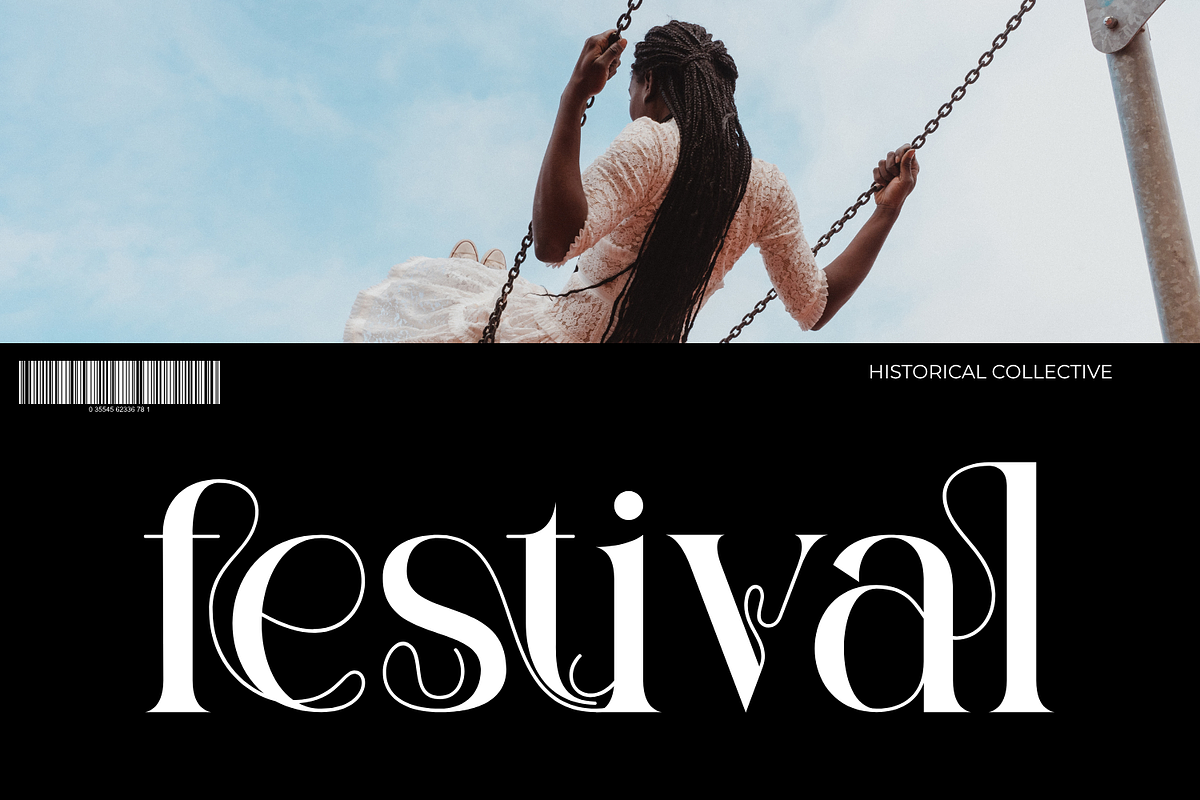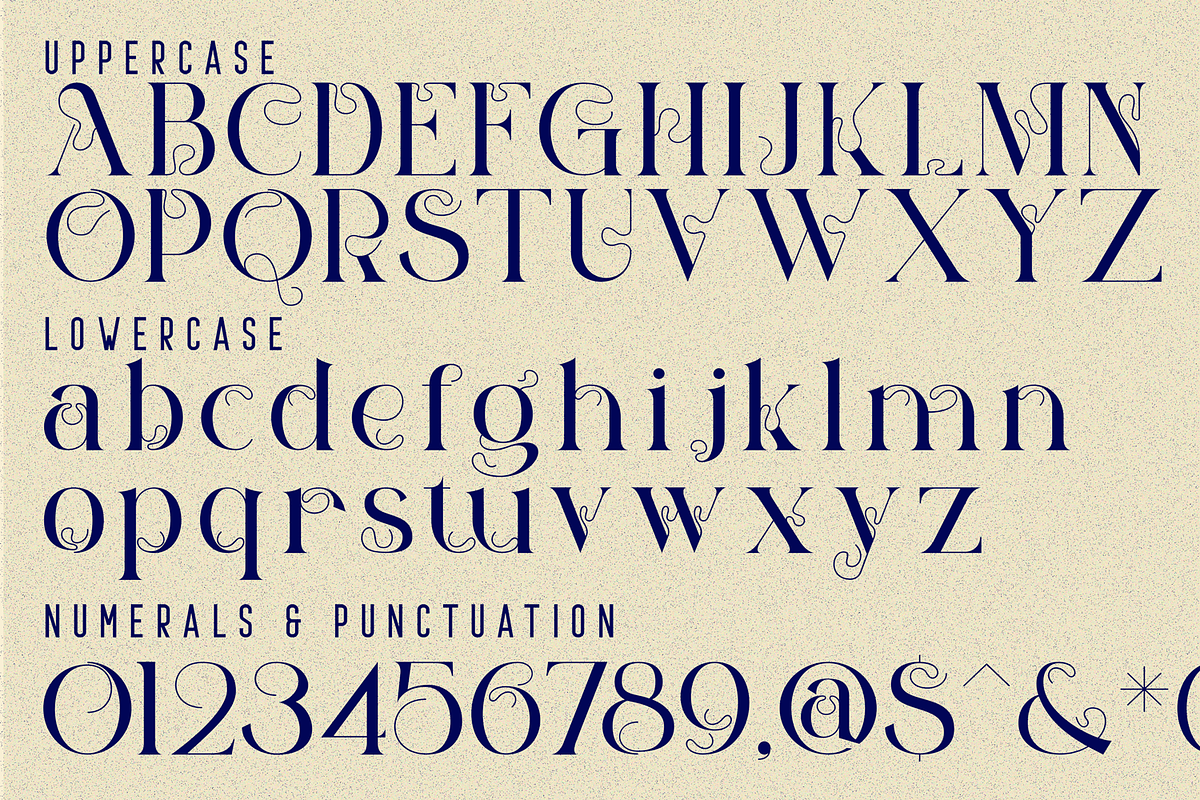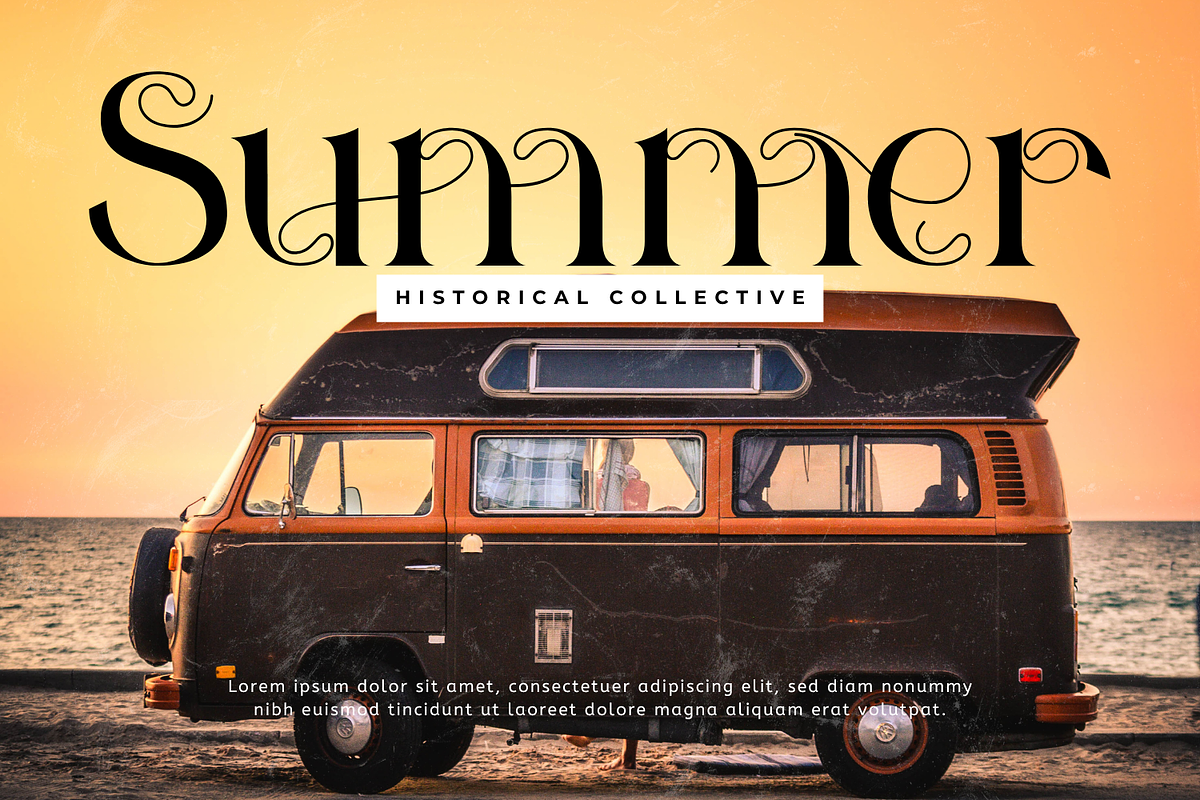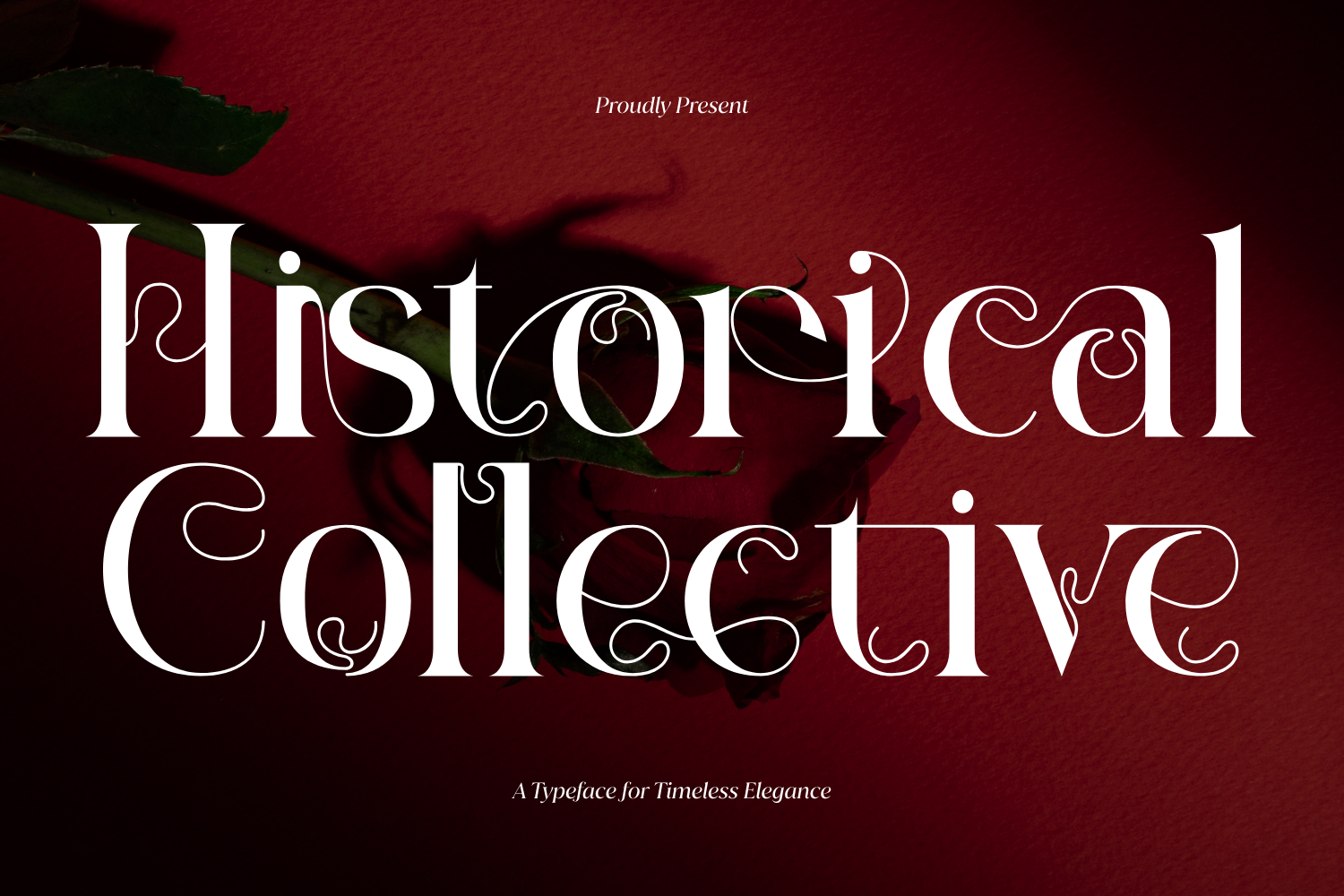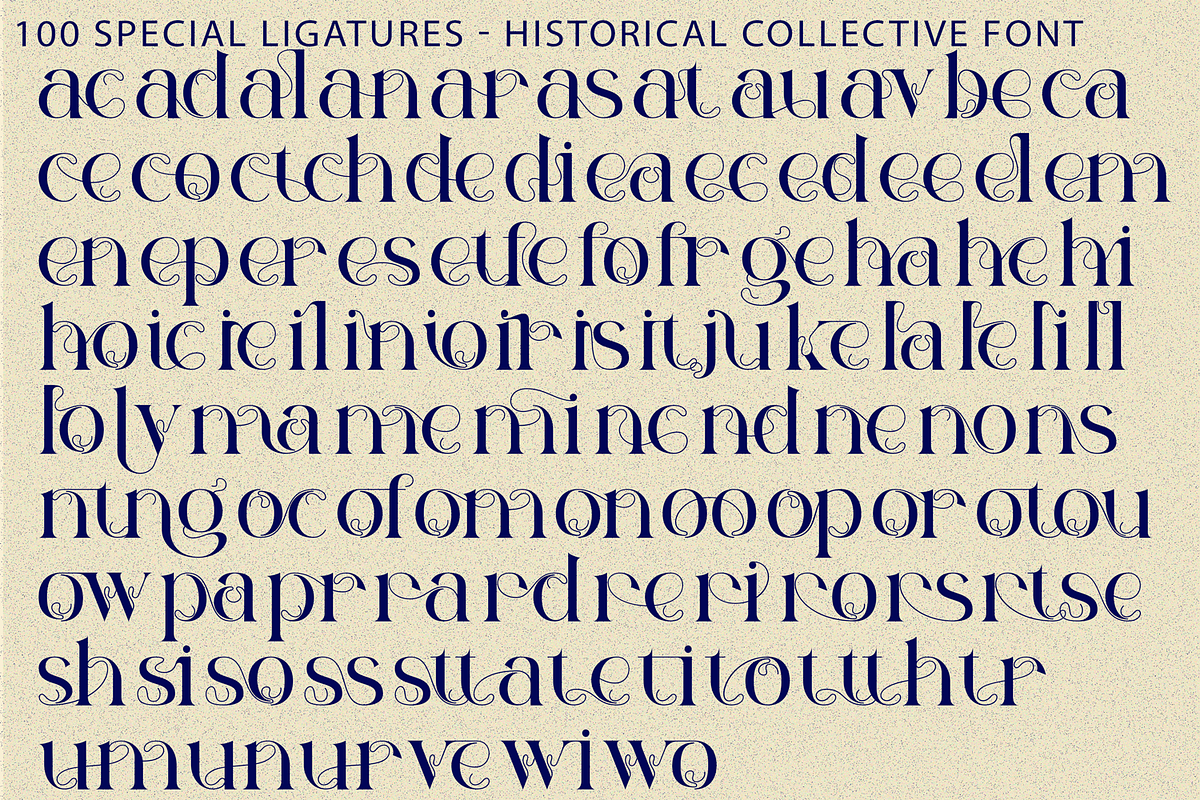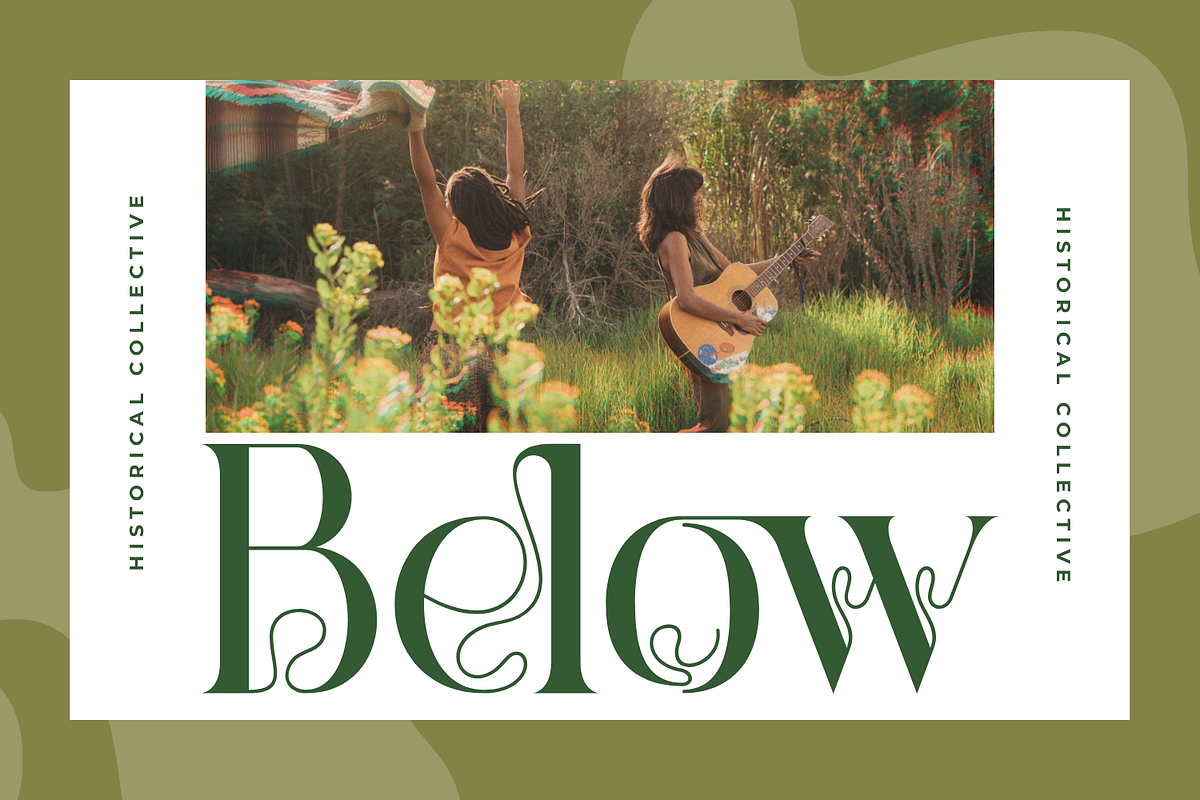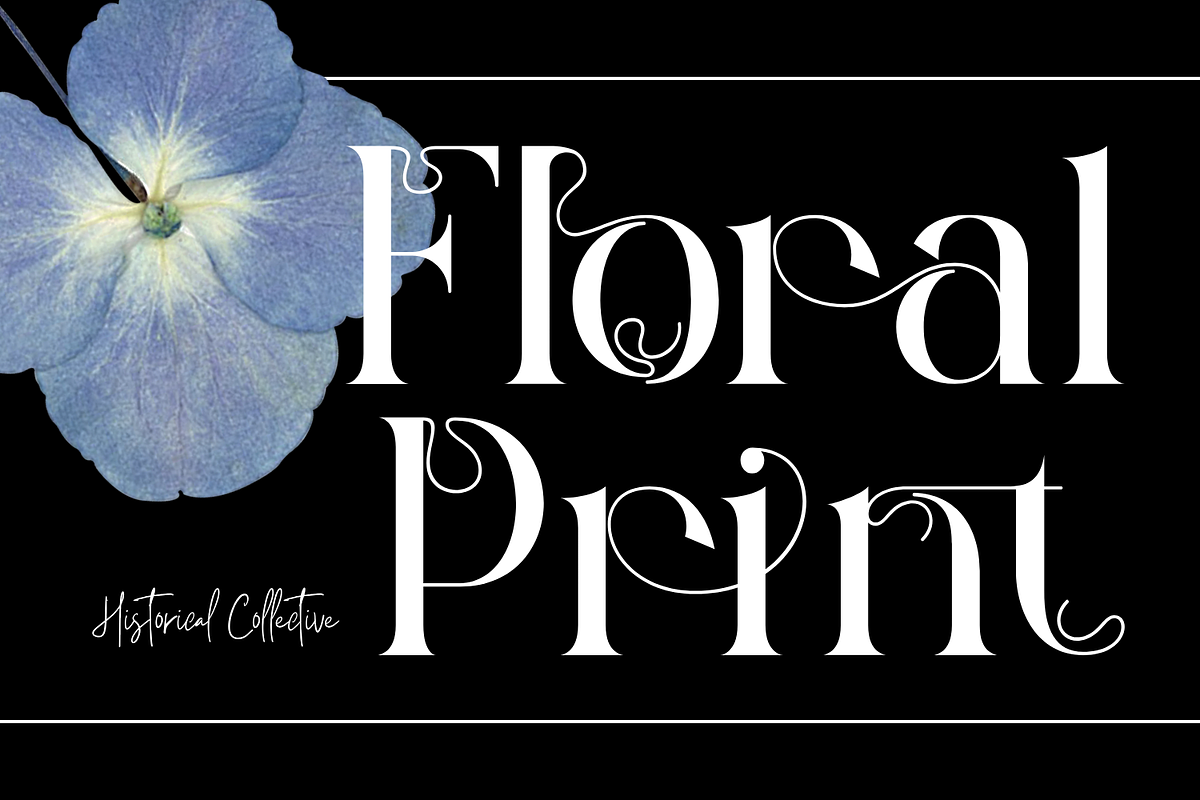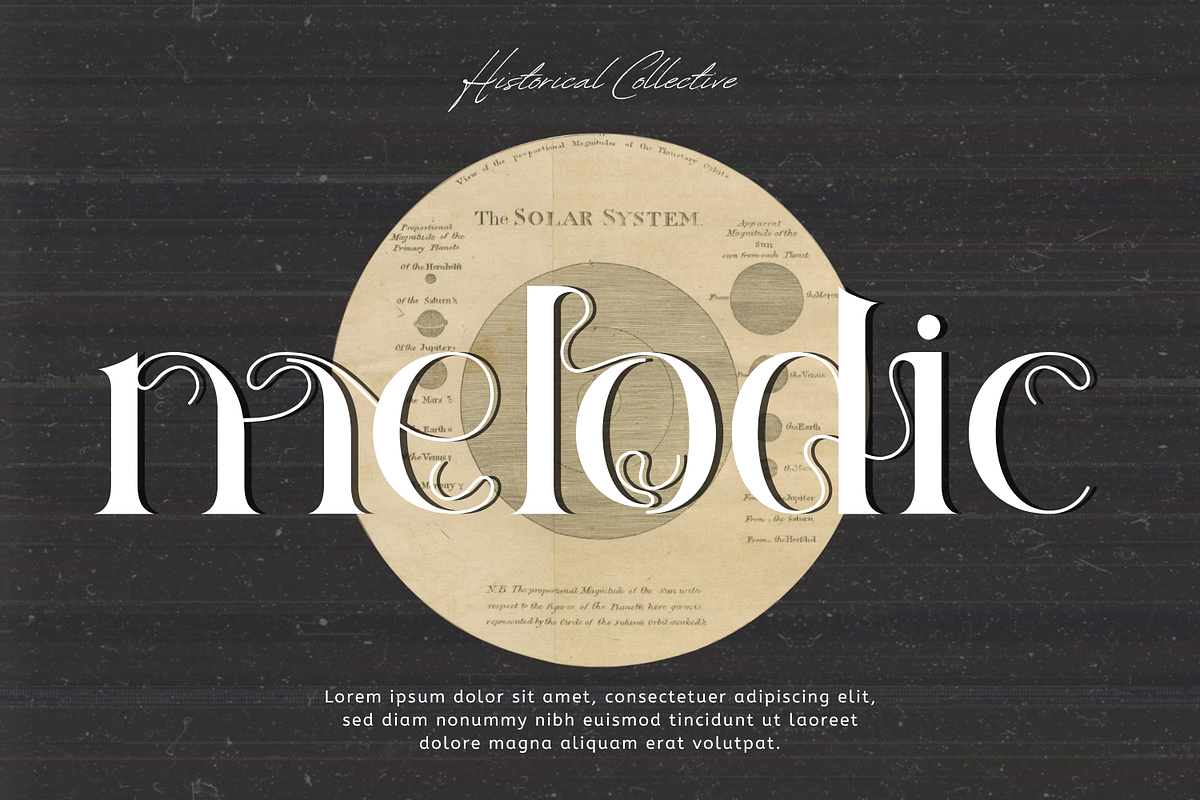
Historical Collective Font
Historical Collective Font – Modern Botanical Calligraphic Serif & Ornamental Display Font, is an exquisitely crafted calligraphic serif display font inspired by Art Nouveau aesthetics, vintage botanical tendrils, and romantic Victorian typography. Defined by its stately serif stems and delicate hairline swirls nesting gracefully within character counters, this typeface infuses headlines with organic mystery and timeless royal sophistication.
Designed to make typography feel both sculptural and expressive, Historical Collective turns individual letters into striking visual compositions. The contrast between bold structural strokes and extremely fine ornamental lines creates a sophisticated sense of movement, while its elongated curves and intricate flourishes add a distinctive couture-inspired character. The result is a typeface that feels glamorous, feminine, dramatic, and unmistakably modern while retaining a touch of classical elegance.
🔤Features:
Uppercase & Lowercase Letters
Around 100 Special Ligatures & Alternates
Accented Characters for multilingual support
🔤About 100 ligatures combined with Stylistic Alternates Font:
ac ad al an ar as at au av be ca ce ch co ct de di ea ec ed ee el em en ep er es et fe fo fr ge ha he hi ho ie ic il in io ir is it ju ke la le li ll lo ly ma me mi nc nd ne ng no nt ns oc of om on oo op or ot ou ow pa pr ra rd re ri ro rs rt se sh si so ss st ta te th ti to tr tt um un ur ve wi wo